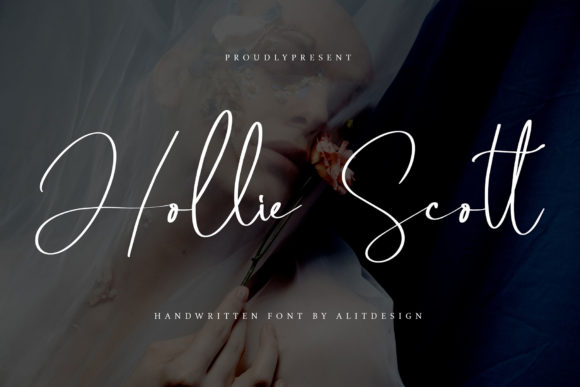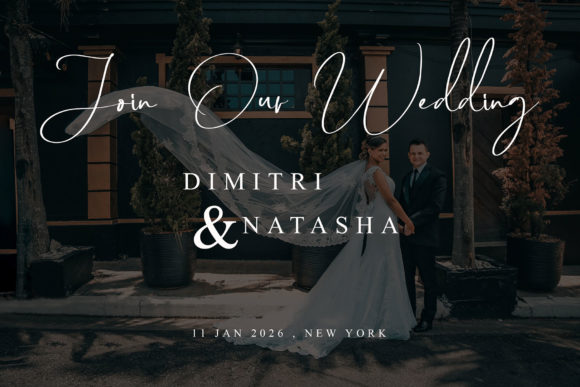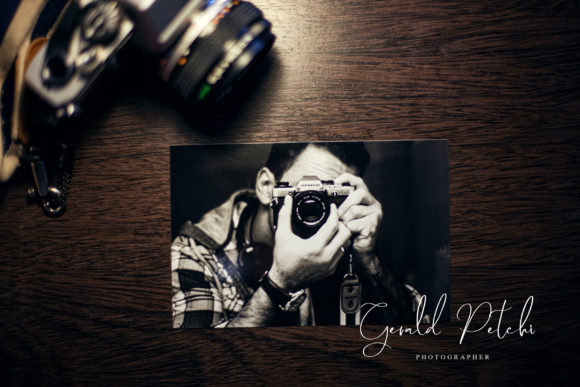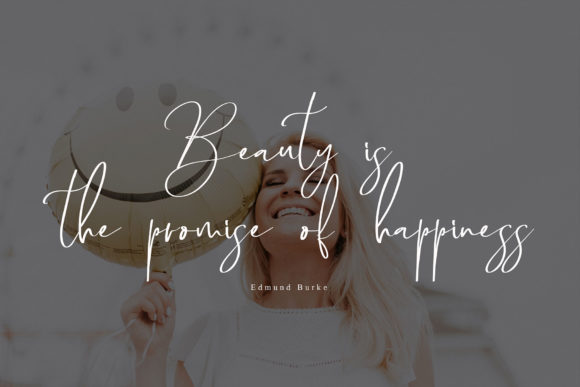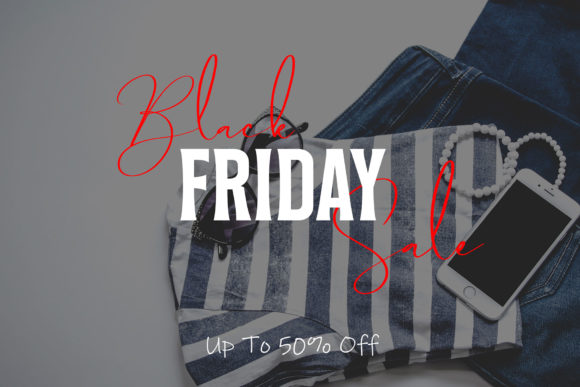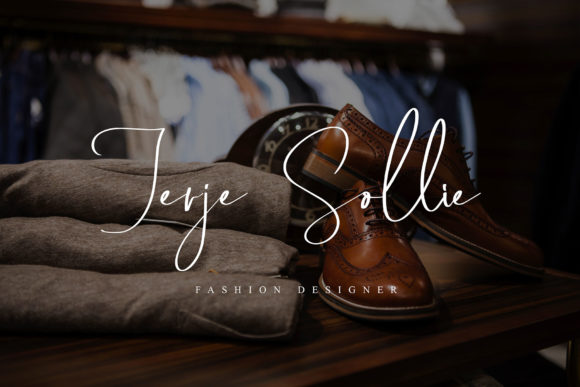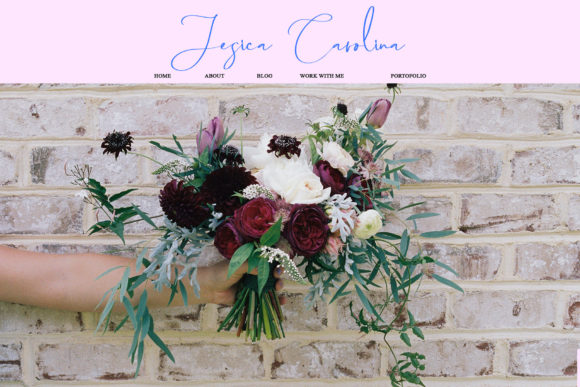
Hollie Scott Font
About Hollie Scott Font
Hollie Scott is a dreamy and romantic handwritten font. It is ideal for printed quotes, wedding invitation cards, social media headlines, product packaging, and more!